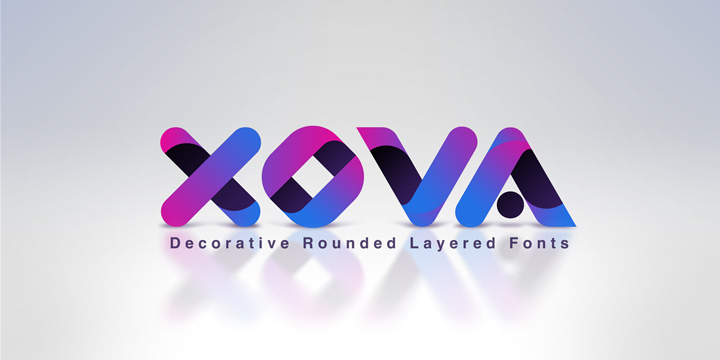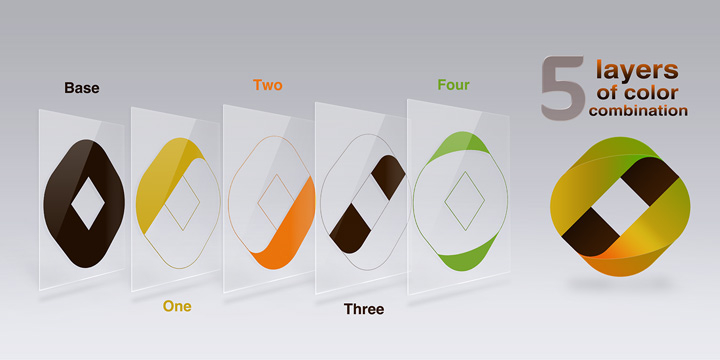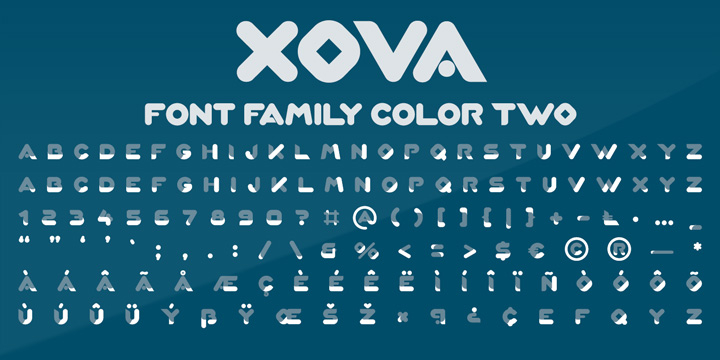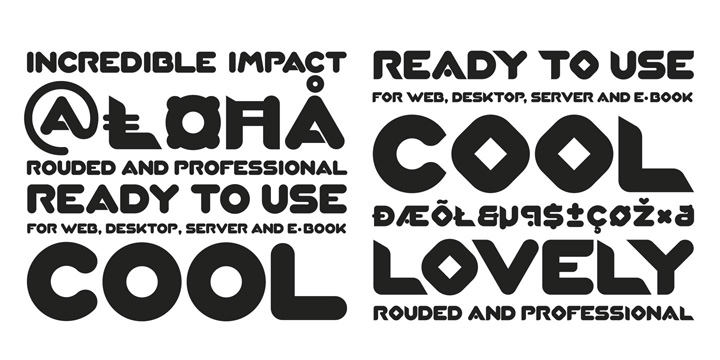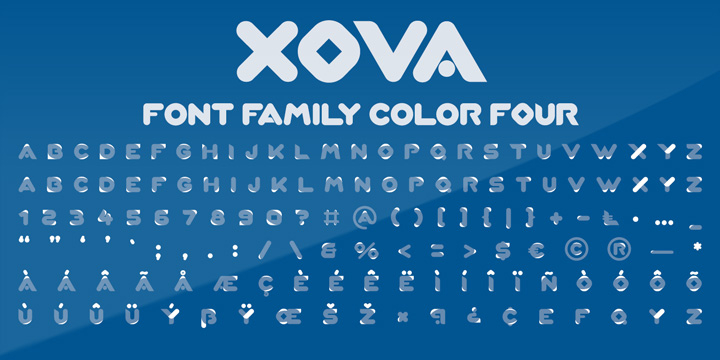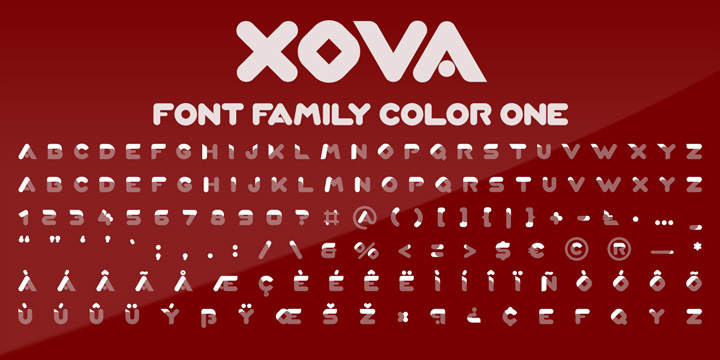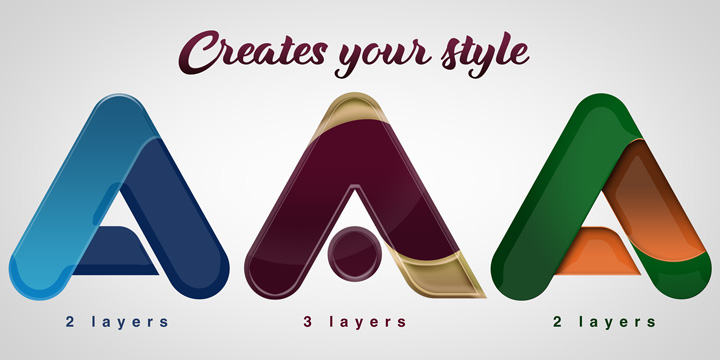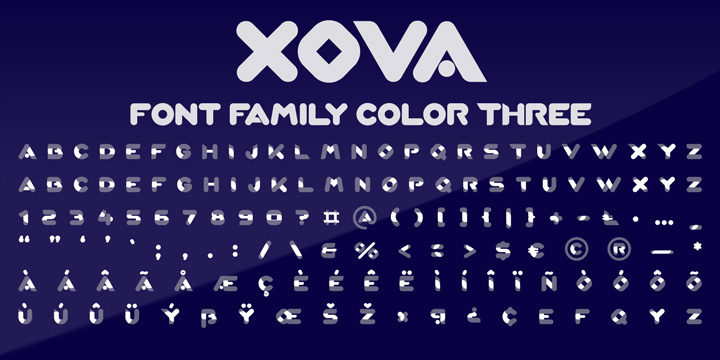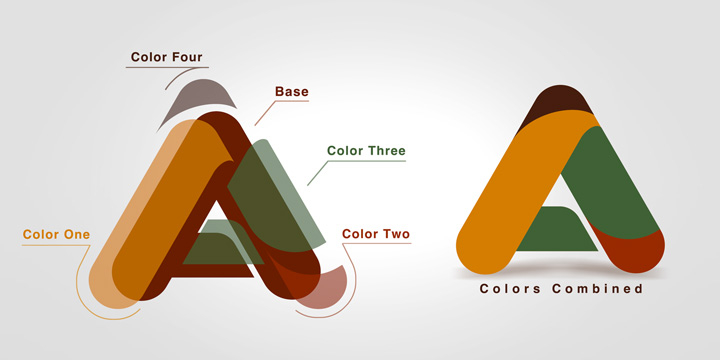
Xova is a display sans font family. This typeface has five styles and was published by Cerri Antonio.
XOVA base, color one, color two, color three and color four, is a 5 font system that can be layered in different ways to create a infinite title effects used commonly in poster and 3D logo design.
Xova works great in any graphics application that allows you to utilize layers or 3D effects.